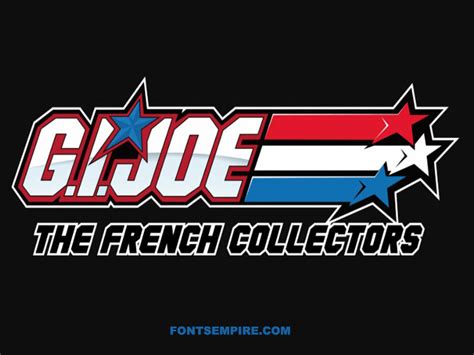
This powerful tool allows you to transform your ordinary text into a bold and commanding font inspired by the iconic Gi Joe franchise. With just a few clicks, you can create attention-grabbing headlines, posters, social media posts, and more.
But why settle for plain and boring fonts when you can channel the strength, courage, and determination of a real American hero with the Gi Joe font?
Font generator tools have carved a special niche in the digital design world, unleashing oodles of creative possibilities for designers and enthusiasts alike. Unleashing your inner warrior with the Magnificent GI Joe Font Generator is one such tool that lets you create stunning text styles for a wide range of applications. In this blog post, we will take an in-depth look at this fantastic online tool, exploring its features, benefits, and drawbacks, and comparing it with other font generators in the market.
What is the Magnificent GI Joe Font Generator?
The Magnificent GI Joe Font Generator is a powerful online tool that allows users to create their own customized fonts for free. According to the creators, the tool is inspired by the classic GI Joe logo font, which is known for its bold, eye-catching style. The Magnificent GI Joe Font Generator offers several customization options, including font size, color, and spacing, among others.
To use the Magnificent GI Joe Font Generator, you need to follow a few simple steps. First, visit the website and type in your desired text in the designated box. Next, select your preferred font size, color, and spacing options. You can also choose to add effects like gradient fills, drop shadows, and outline strokes to your text. Finally, click on the Generate button to see your custom font style.
1. Limited font choices
The tool only offers one font choice, the GI Joe logo font, which may not be suitable for all projects.
3. Limited control over effects
While the tool does offer several effects options, users have limited control over these effects, which may not be sufficient for some advanced users.
Comparing the Magnificent GI Joe Font Generator with other font generators
Let's compare the Magnificent GI Joe Font Generator with two other popular font generators:
1. Fontjoy
Fontjoy is a font generator tool that uses machine learning algorithms to help users discover new font combinations. While Fontjoy offers a wider range of font choices than the Magnificent GI Joe Font Generator, it does not offer as many customization options.
2. Canva Font combination tool
Canva Font combination tool is a web-based tool that helps users discover font combinations that work well together. While Canva offers a more comprehensive set of design tools than the Magnificent GI Joe Font Generator, it is also more complex to use and may be overwhelming for beginners.
The Magnificent GI Joe Font Generator provides a simple and accessible tool for those wanting to play with their text choice more. Its easiness to use combined with the array of effects available with numerous colour choices; makes it a popular choice. While it may not be one of the most sophisticated font generators on the market, it is a freemium service that is free to use, perfect for smaller business owners or freelancers. Overall, it is a reliable tool that is great for injecting personality and character into any design project.